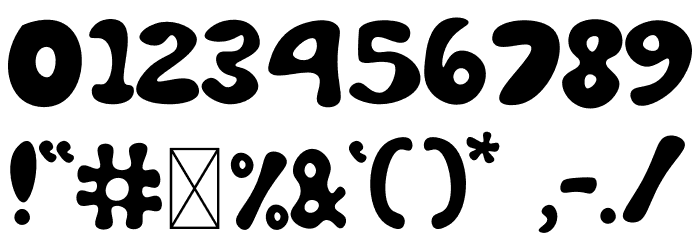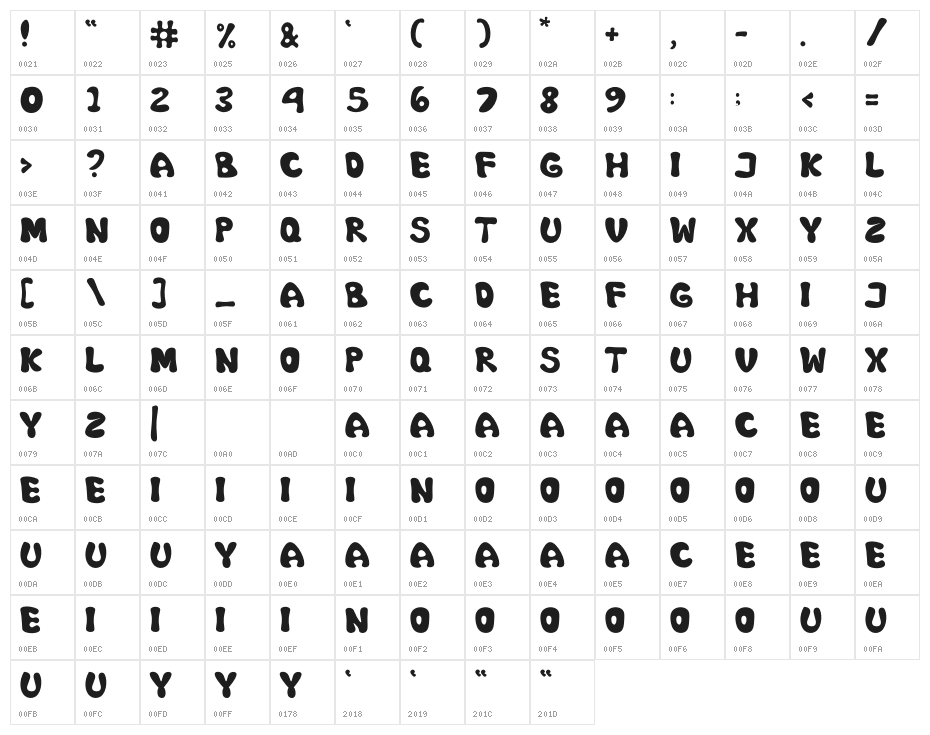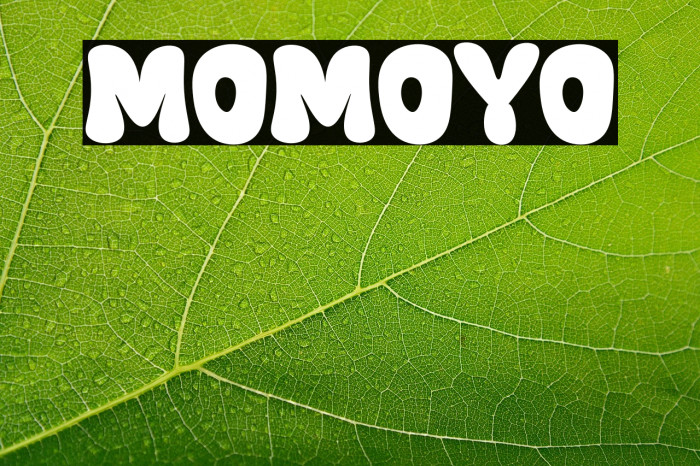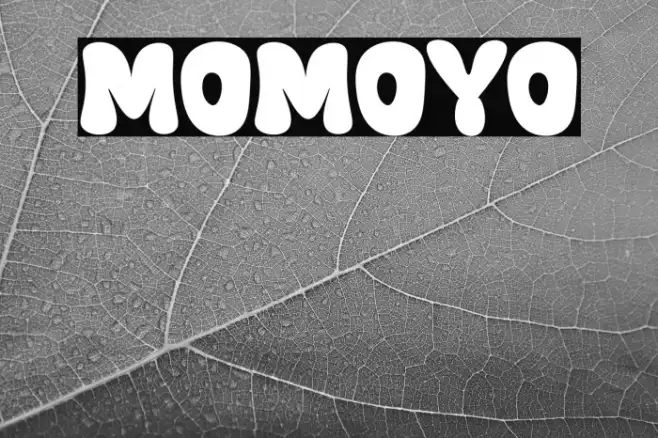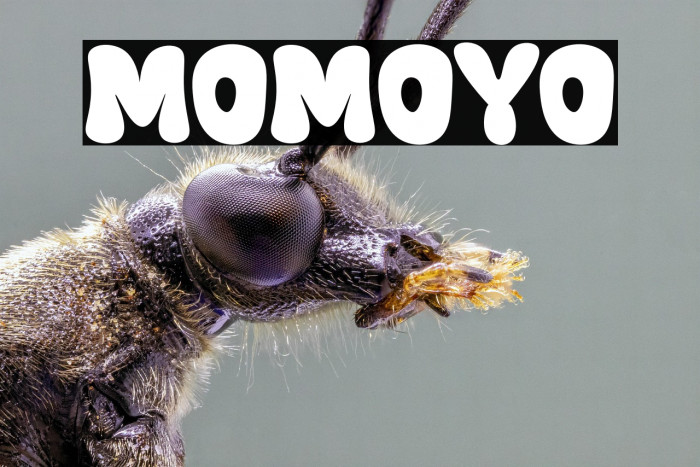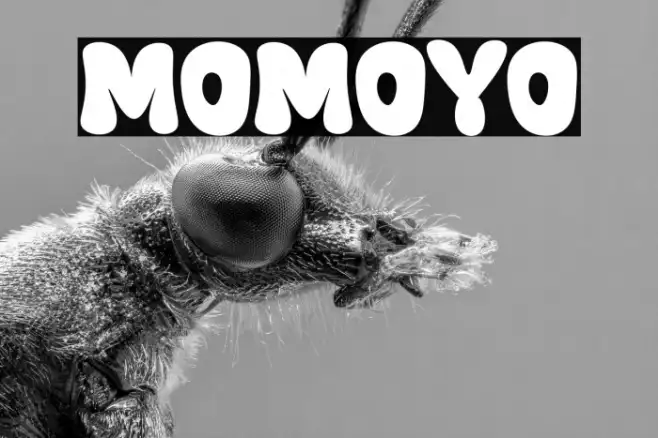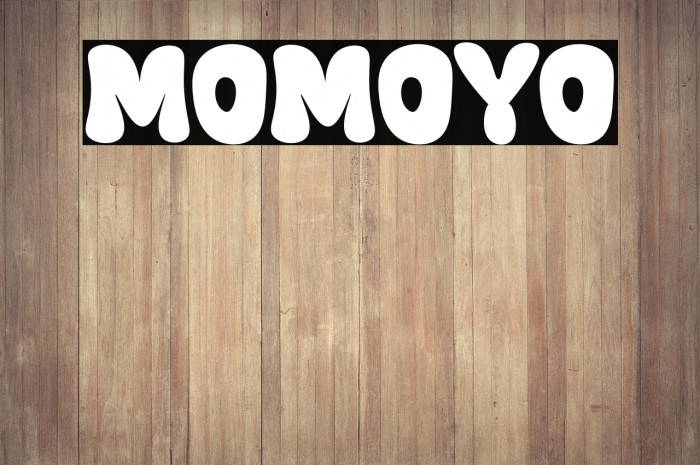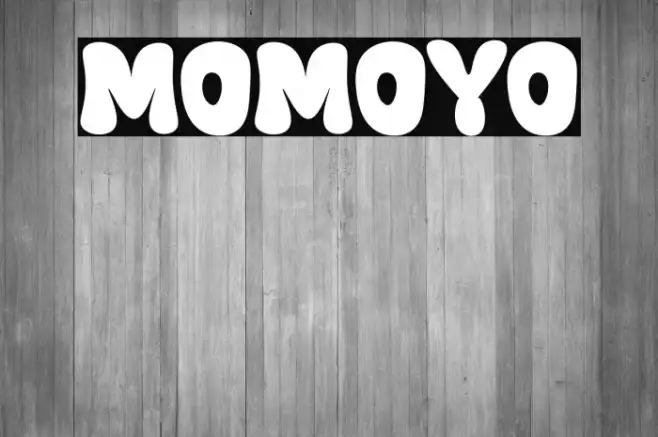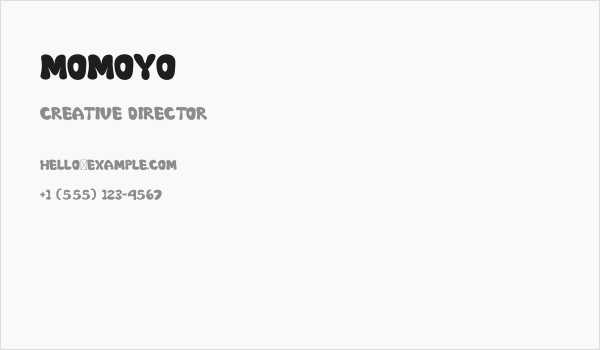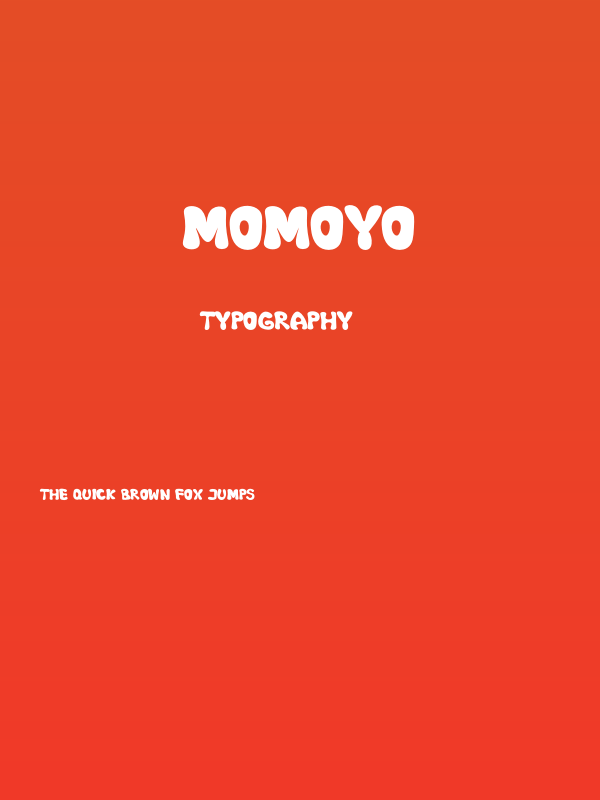
Momoyo Font
Momoyo Description
This playful and bold font features rounded, bubble-like characters that exude a sense of fun and creativity. The letters are thick and have a consistent stroke width, giving them a uniform appearance. The characters are slightly irregular, adding a whimsical touch to the overall design. This font is highly legible and stands out due to its unique style, making it ideal for eye-catching designs. The numbers and special characters maintain the same playful aesthetic, ensuring consistency across all text elements.
| Proposed Projects | Perfect for children's books, playful branding, party invitations, and creative posters. |